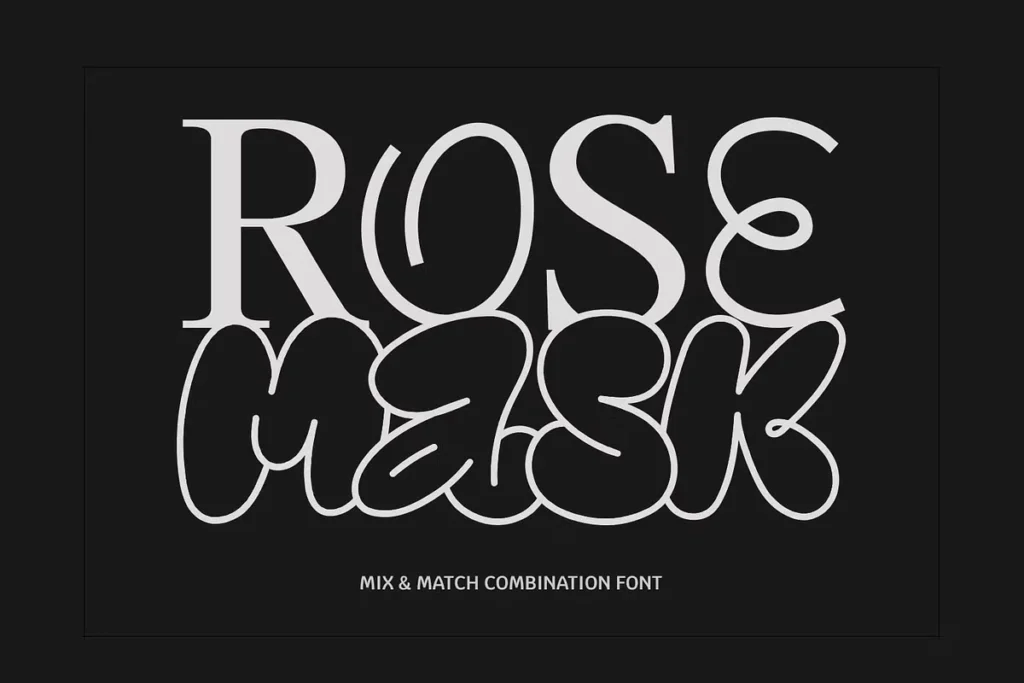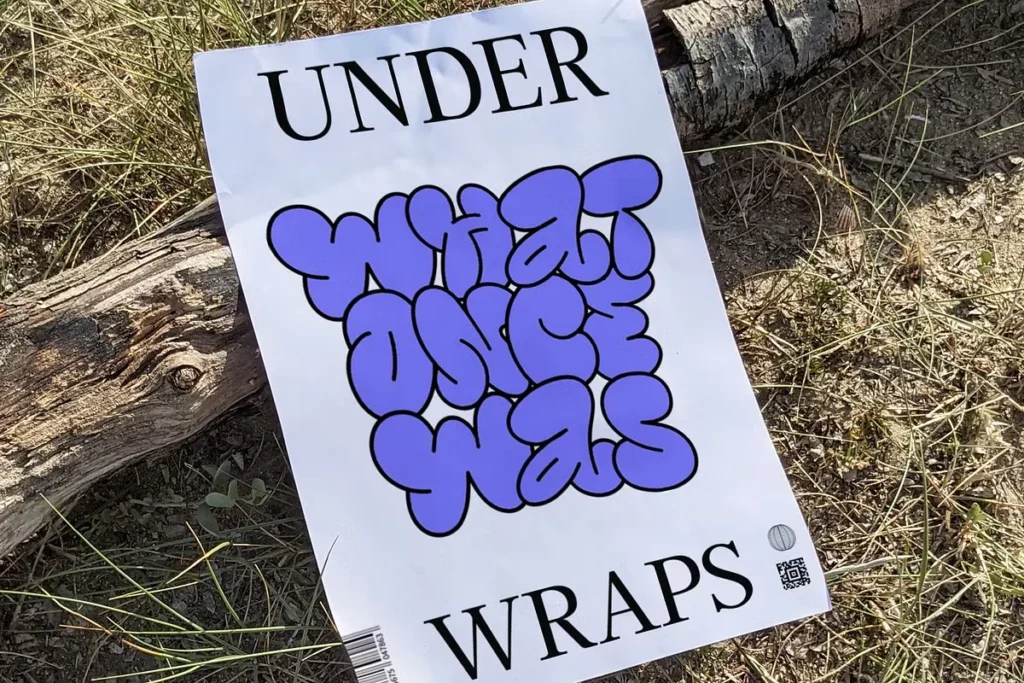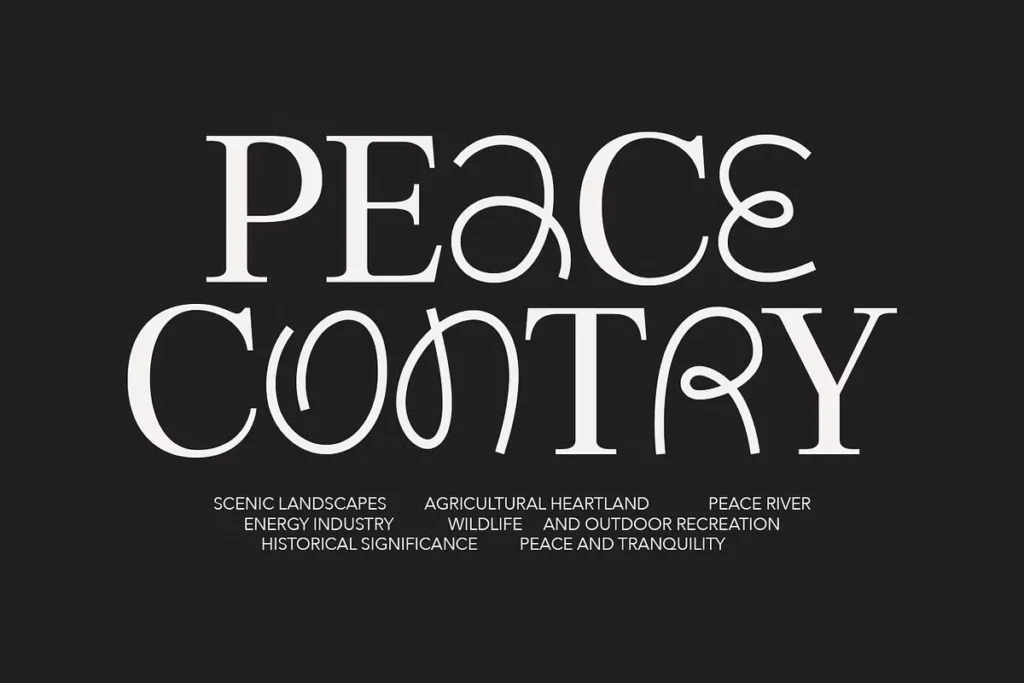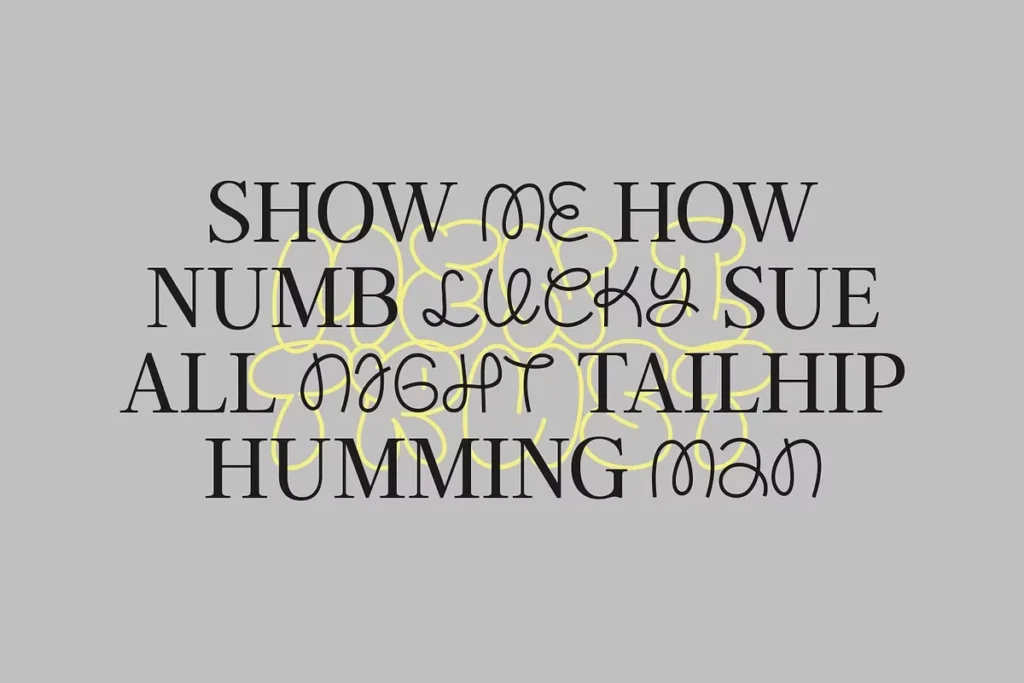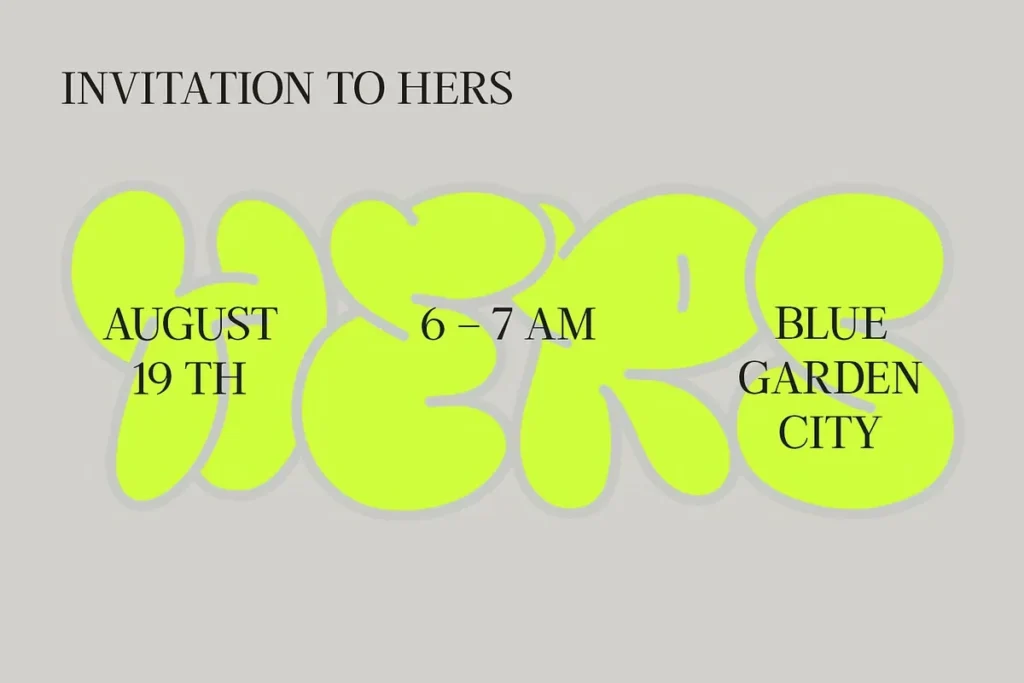
Rose Mask Font
About Rose Mask Font
I’m a typographer and graphic designer with a love for fonts that tell a story. While working on a bold branding project for a lifestyle brand, I came across the Rose Mask Font. It stopped me in my tracks. I wasn’t hunting for just another serif. This one had character. I found it on a curated design marketplace while browsing through retro-style font families. Its blend of elegance and fun stood out right away.
I’ve used Rose Mask in logo design, social media graphics, and a print campaign. It gave each piece a unique voice. If you design across digital and print like I do, you’ll appreciate how this font effortlessly transitions between elegance and playfulness. It isn’t just another pretty typeface. It works. That’s why I’m sharing this review.
The Font and Its Designer
Rose Mask Font is a captivating combination font with three distinct styles that seamlessly complement each other. Created by Viswell Studio, it feels like a crafted tool made for designers, not just a download link. The font comes with uppercase characters in an elegant serif font style that feels classic and timeless. Then there’s the lowercase. More relaxed, soft, and playful, almost like a monoline sketch. The third style is the wildcard. Bubbly gravity-inspired alternates that infuse creativity into every glyph.
This is not your average “script meets serif” hybrid. Rose Mask balances structure and movement, giving designers the flexibility to craft work that feels grounded but fresh. You can mix and match this versatile font across styles without anything feeling out of place. Each letter has been crafted with care, which shows in its clean curves and smooth transitions.
Font Features
What makes Rose Mask Font stand out is its range. It’s a bubbly gravity font with three distinct styles in one file. The uppercase style features elegant serif strokes that make it perfect for logos, headers, or editorial work. The lowercase adds a casual tone. Great for captions, packaging, or branding that needs a bit of softness. The alternate glyphs, with their bubbly gravity, are playful yet balanced.
The transitions between elegance and playfulness feel natural. This font doesn’t try too hard. It just works. That’s a rare find. Rose Mask is sleek and easy to install across platforms. Whether you’re crafting a bold title for a graphic tee or designing a stylish ebook cover, it adapts. The font family supports large volume output, making it a go-to for designers working across print and web.
Rose Mask Font is ideal for more than just logos. It shines in branding work, product packaging, editorial layouts, and typography-focused graphics. I’ve used it in projects ranging from beauty product labels to social media campaigns and even a mobile app interface. It fits everywhere without looking out of place.
This font is also perfect for ebooks, magazines, or any publication where typography plays a key role. If you’re working with Canva or other web tools, Rose Mask is a smart choice. Its clean format and crisp rendering look amazing on screen. It brings personality to everything it touches. Whether it’s a print file, a mobile UI, or even video game interface text.
If you need something that can look formal in one layout and fun in another, this font nails it. Mix and match the styles, play with the glyphs, and see what works best. It’s one of those rare finds that actually inspires new design directions.